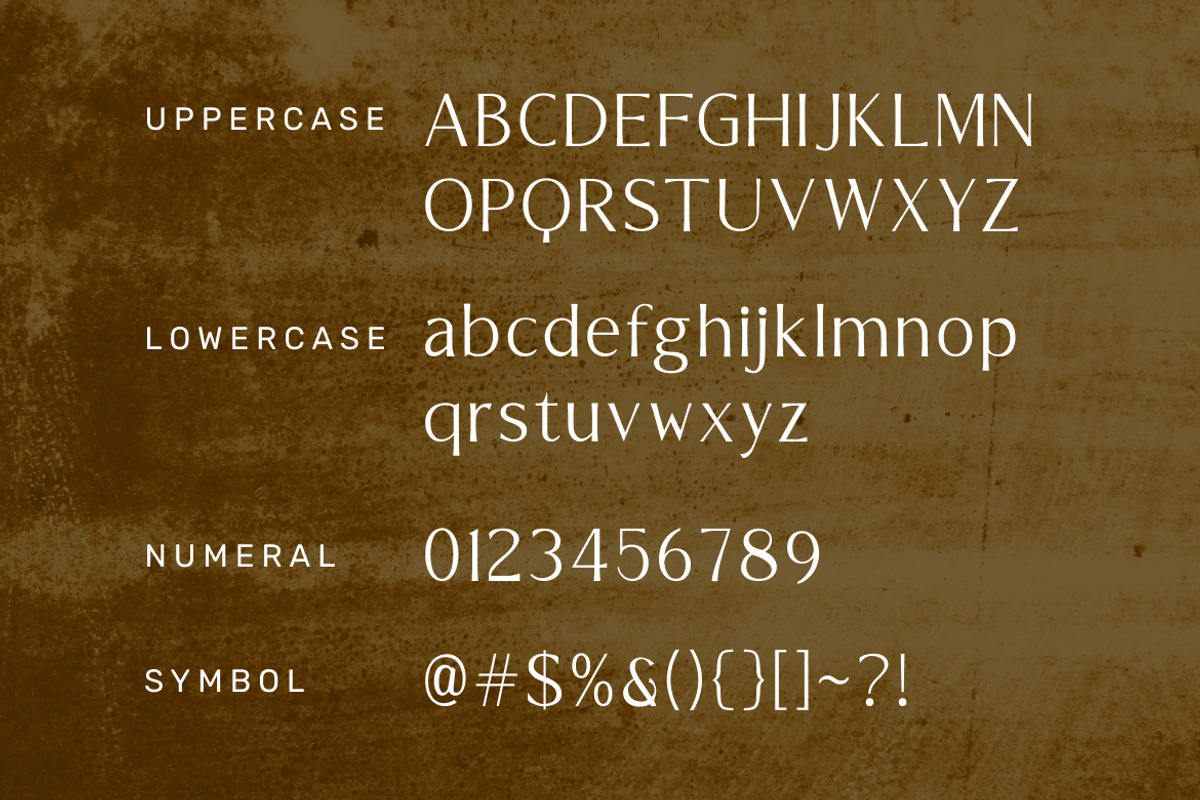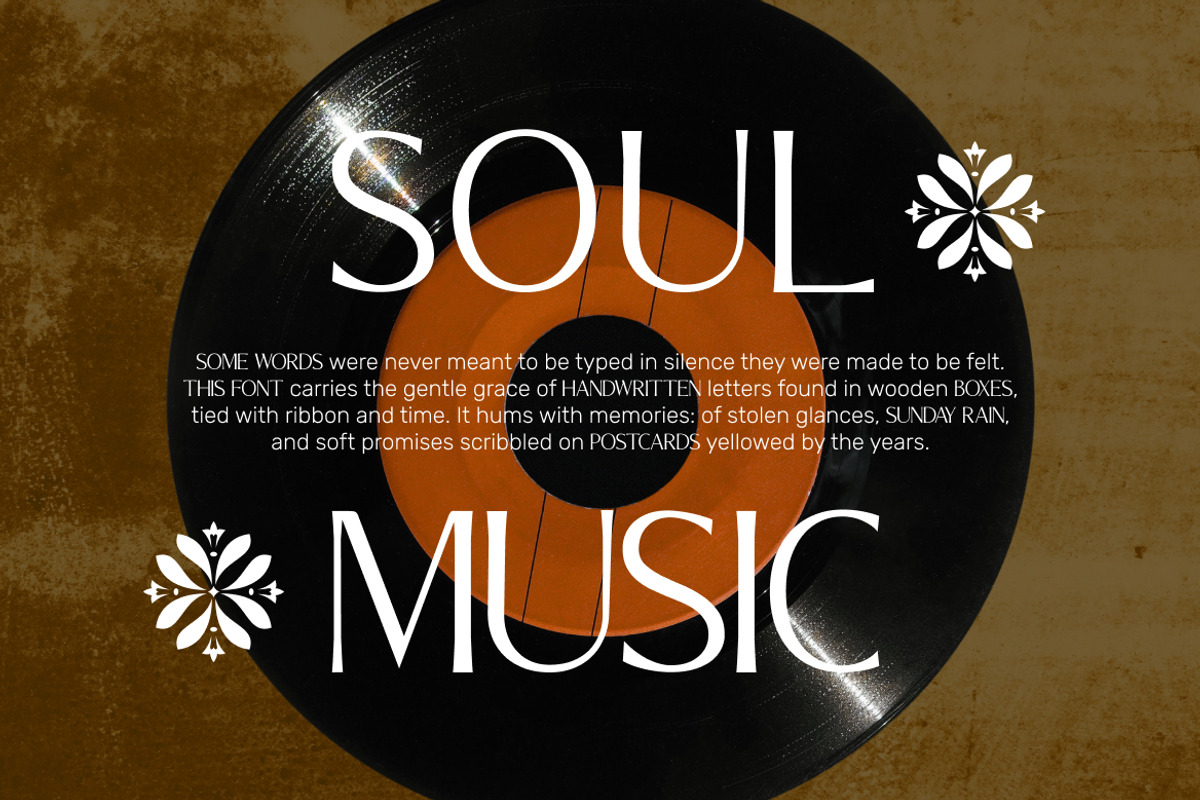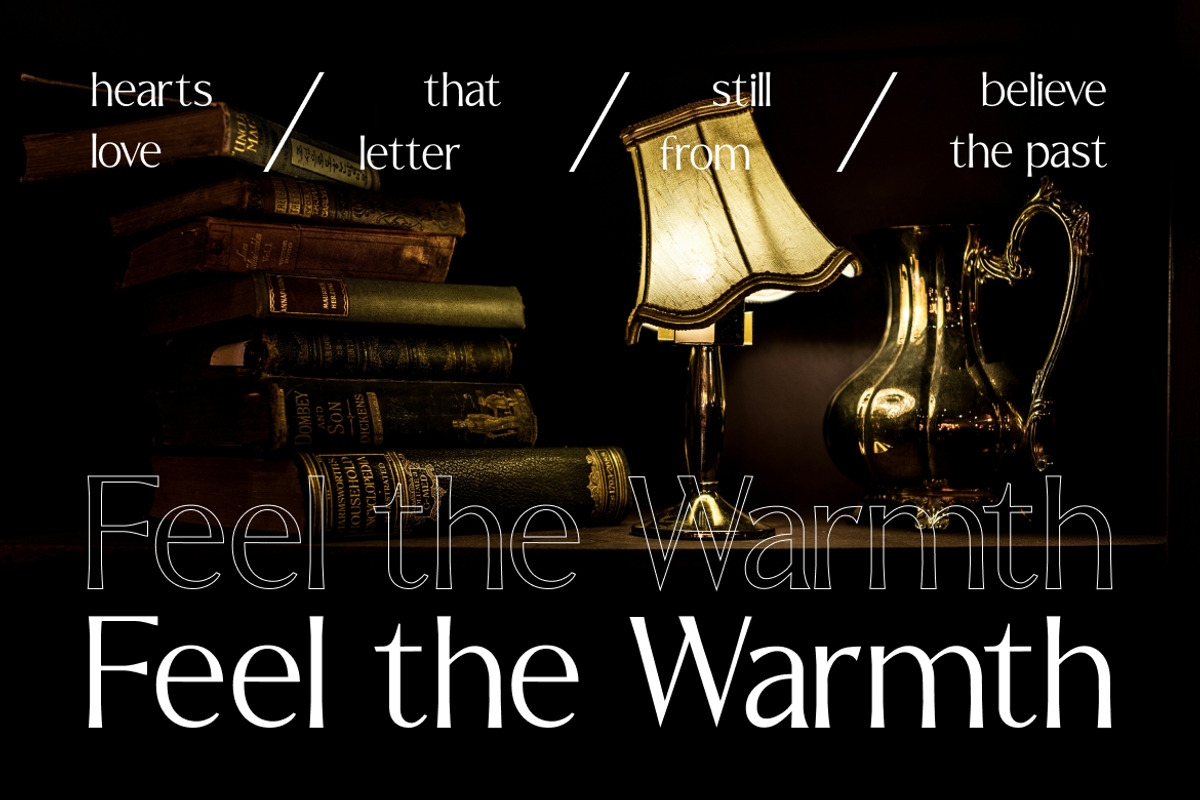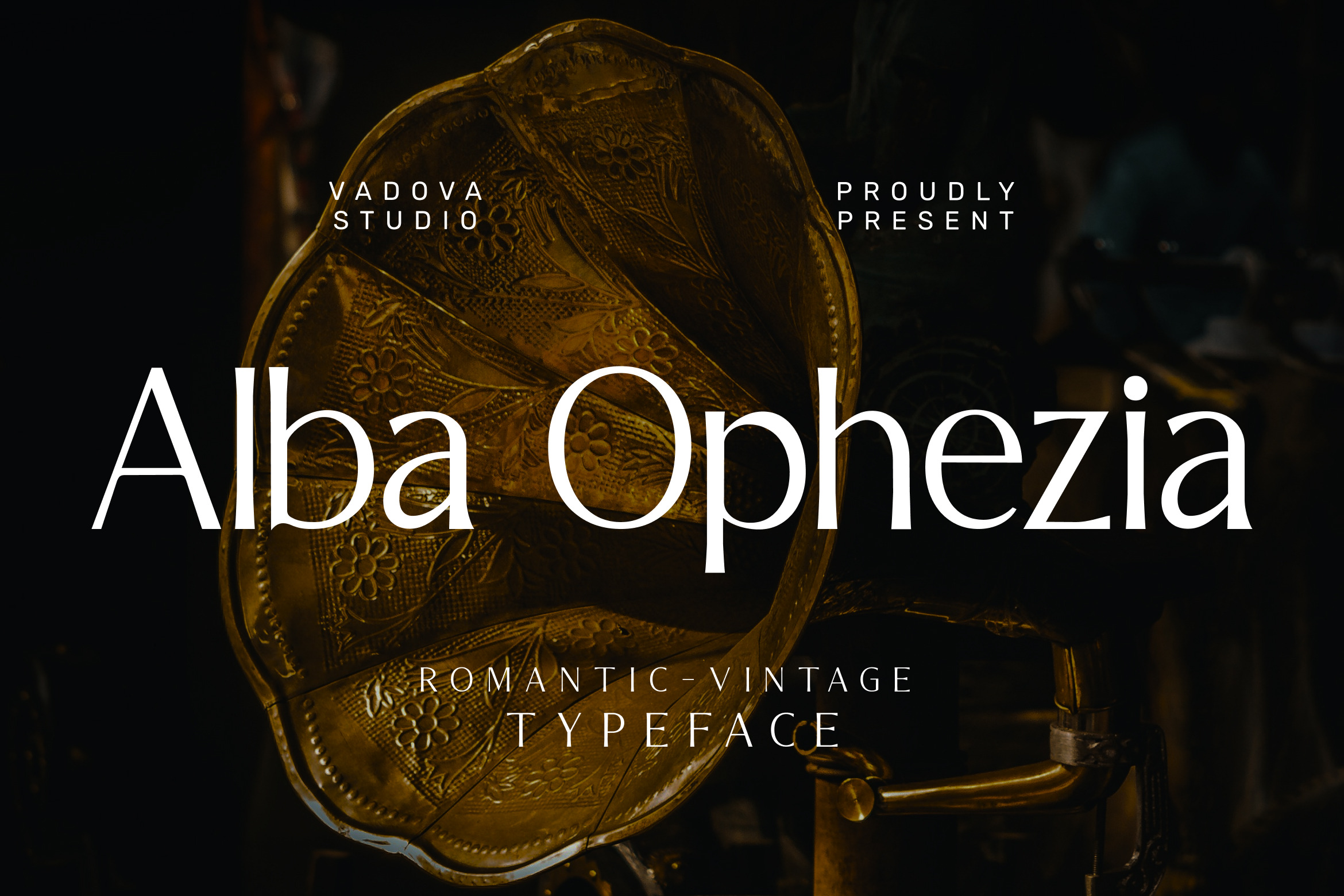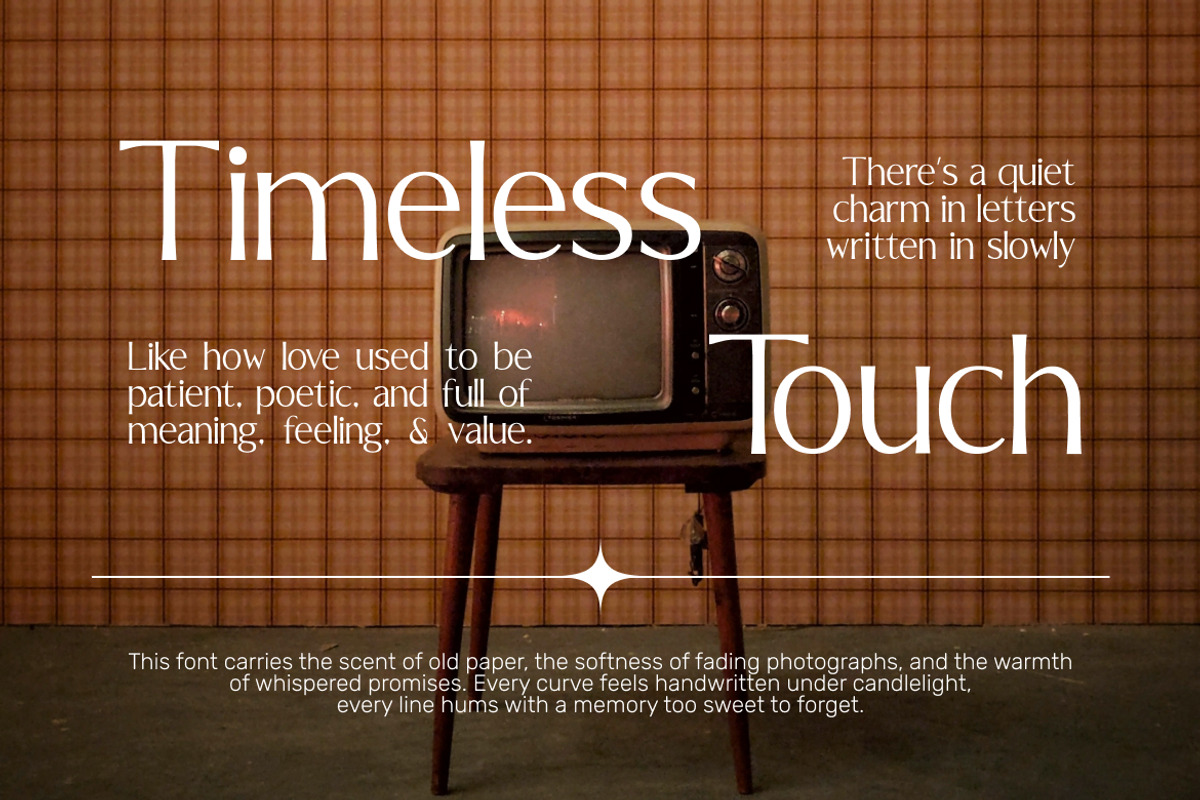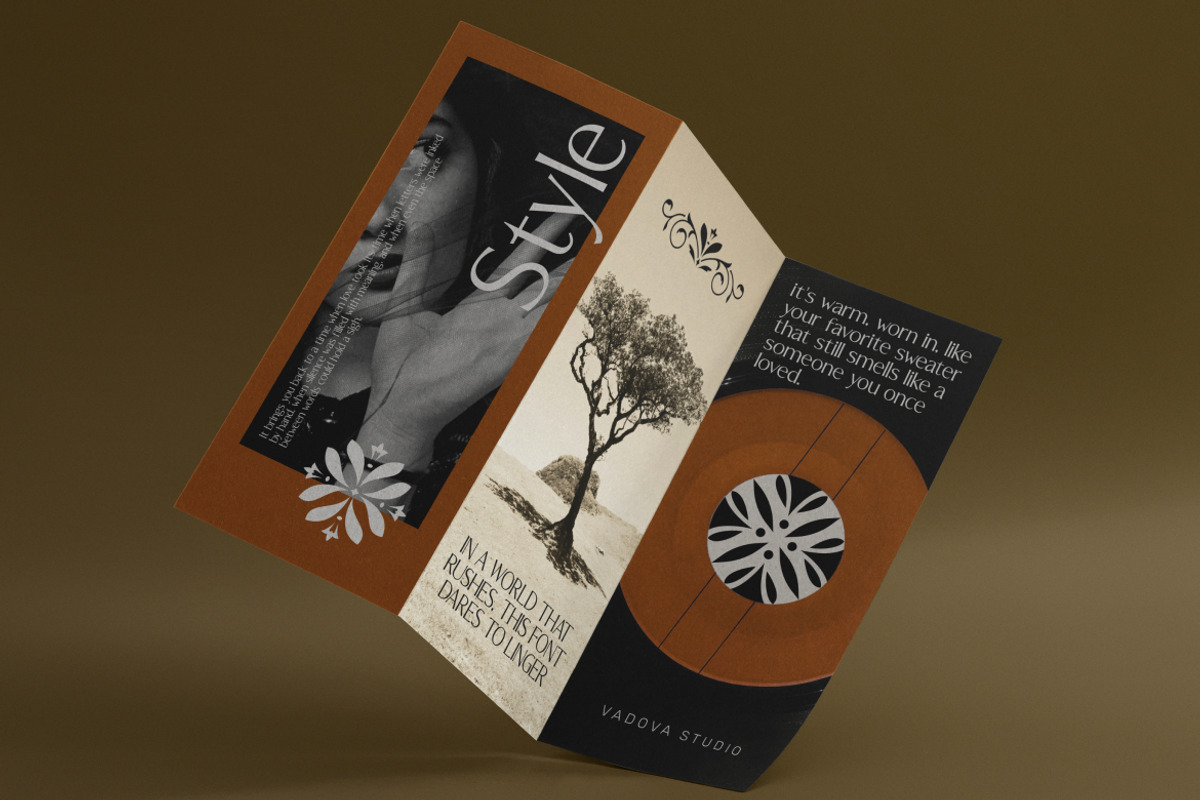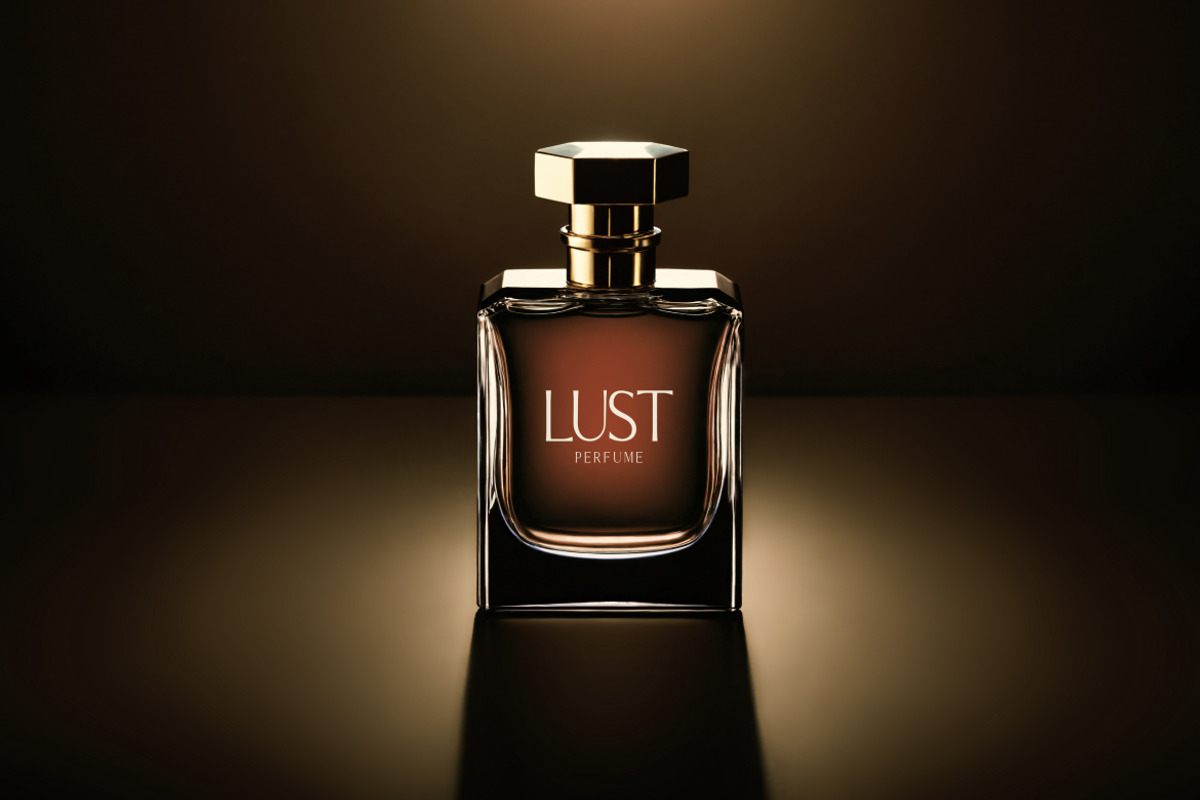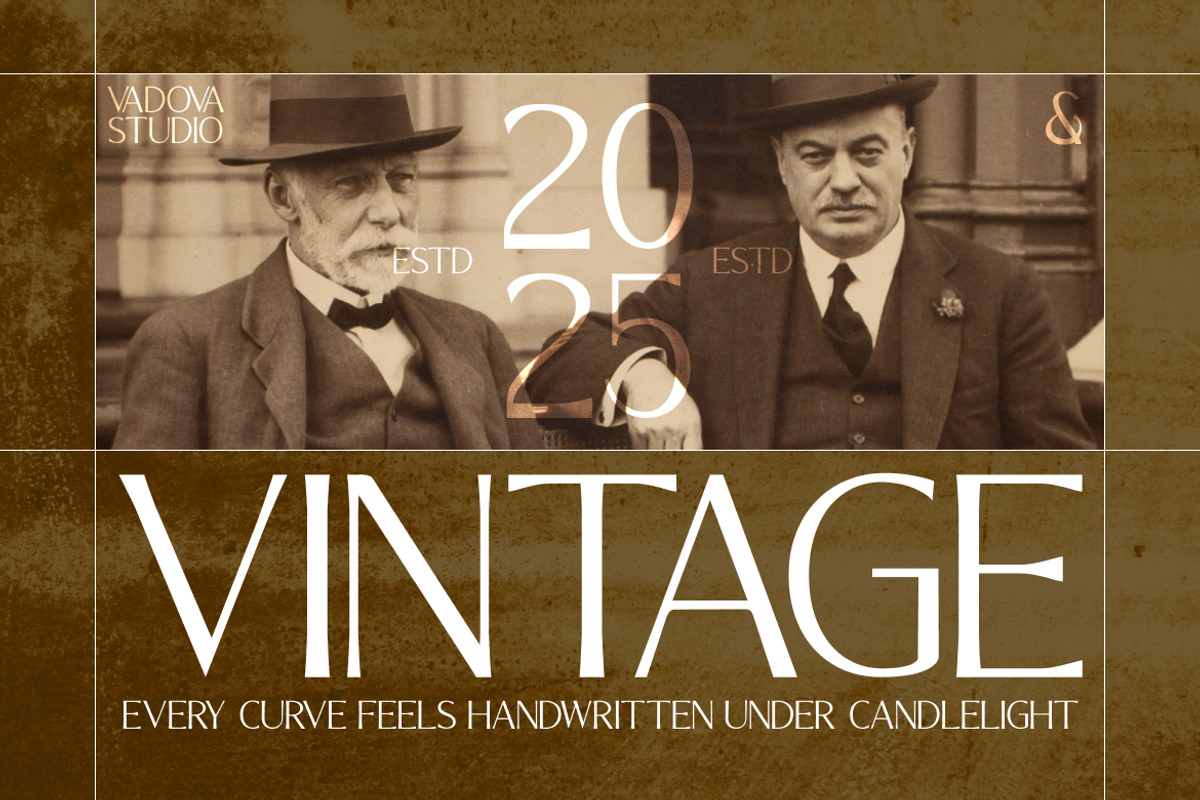
Alba Ophezia Romantic Vintage Font
Alba Ophezia is a romantic vintage serif typeface that blends nostalgic elegance with refined modernity. Each letterform is delicately crafted with graceful curves and subtle contrast, echoing the charm of handwritten love letters and the sophistication of antique editorial prints. This font includes uppercase, lowercase, numerals, punctuation, and essential symbols. Ideal for capturing timeless emotion, Alba Ophezia works beautifully in wedding invitations, vintage branding, poetic editorials, packaging design, and storytelling visuals. Its classic proportions and soft presence make it an unforgettable choice for designers seeking emotional impact with a touch of nostalgia.
Alba Ophezia is the perfect typeface for creatives and brands looking to evoke emotion, softness, and timeless elegance. From wedding stationery and perfume labels to fashion magazines and retro-inspired campaigns, it brings depth and beauty to any project. Its romantic and vintage feel lends itself perfectly to designs where sentiment, warmth, and memory are central.
- Elegant serif structure with refined vintage inspiration
- Subtle curves and delicate contrast for a graceful appearance
- Tall x-height and smooth transitions for enhanced legibility
- Classic proportions with soft edges to evoke emotional warmth
- Carefully spaced for balanced use in headlines or poetic text
- Wedding invitations, vow books, and romantic stationery
- Branding for boutique, perfume, or artisanal lifestyle products
- Editorial spreads in fashion, poetry, or vintage-inspired magazines
- Packaging design for luxury candles, teas, or skincare items
- Social media graphics that convey elegance, nostalgia, and charm
Let Alba Ophezia bring timeless charm to your words